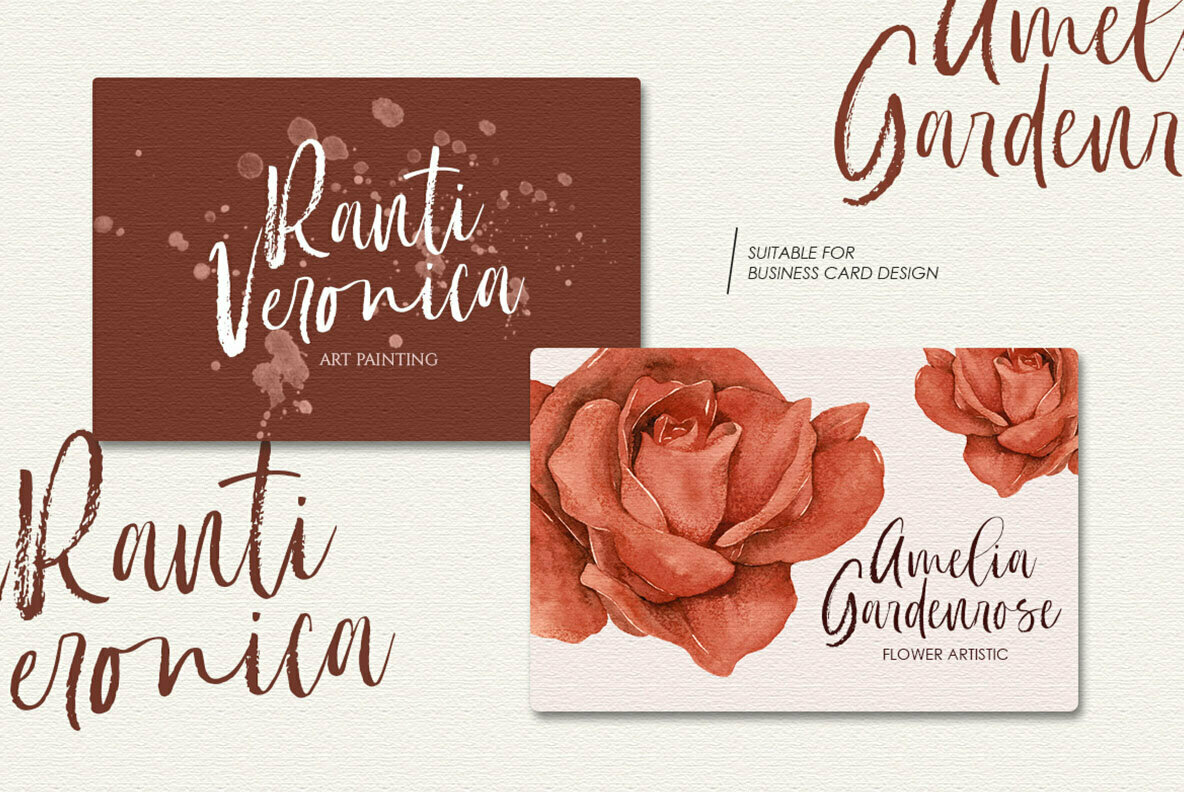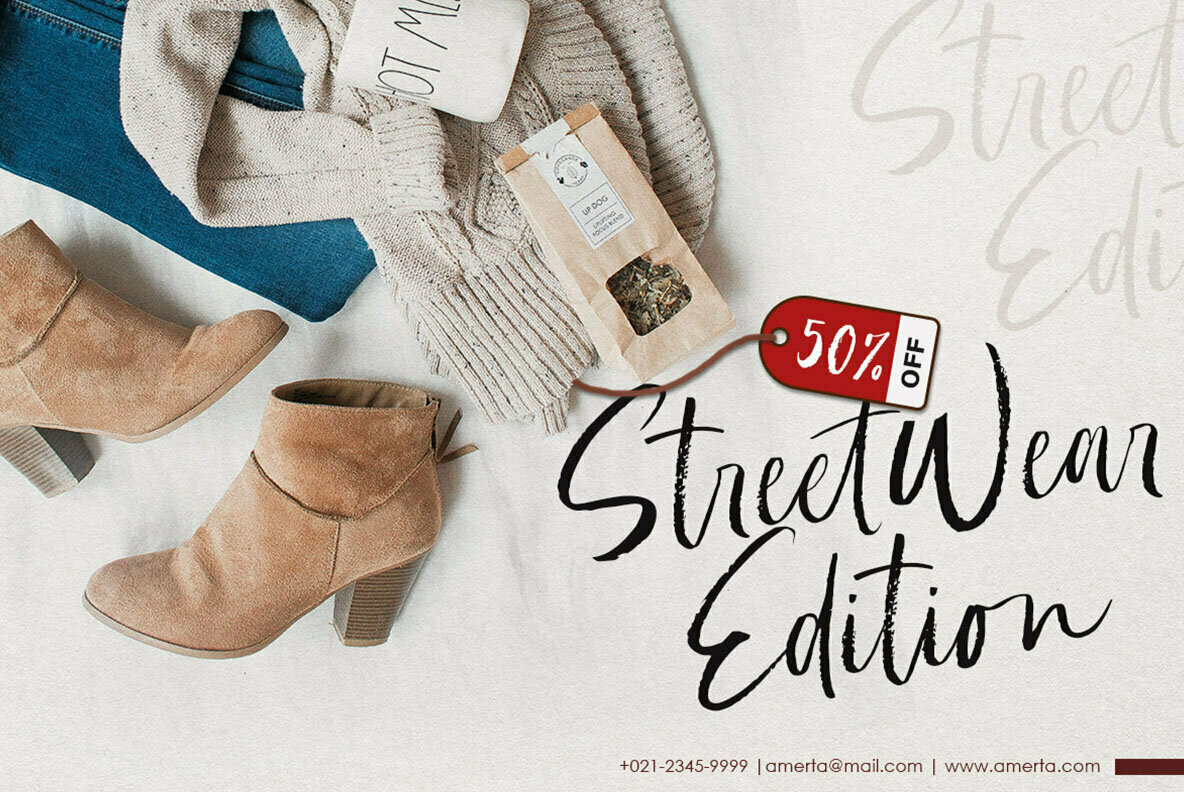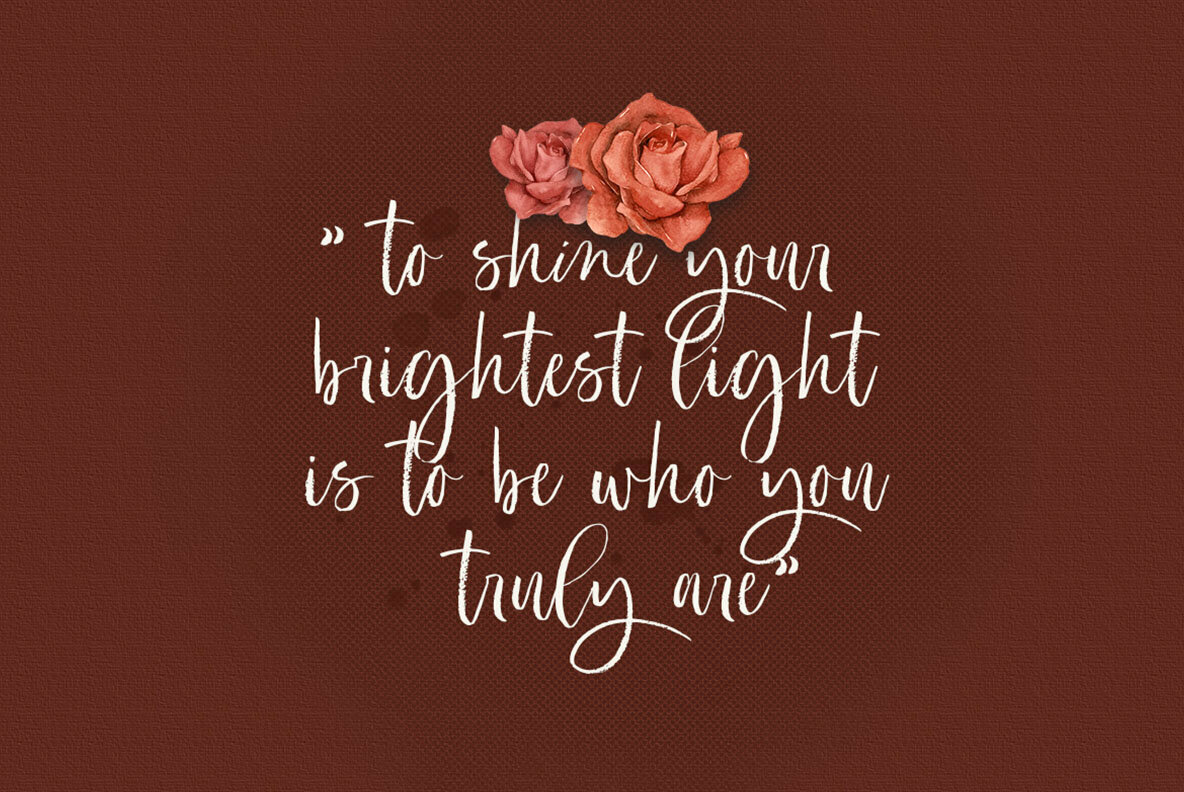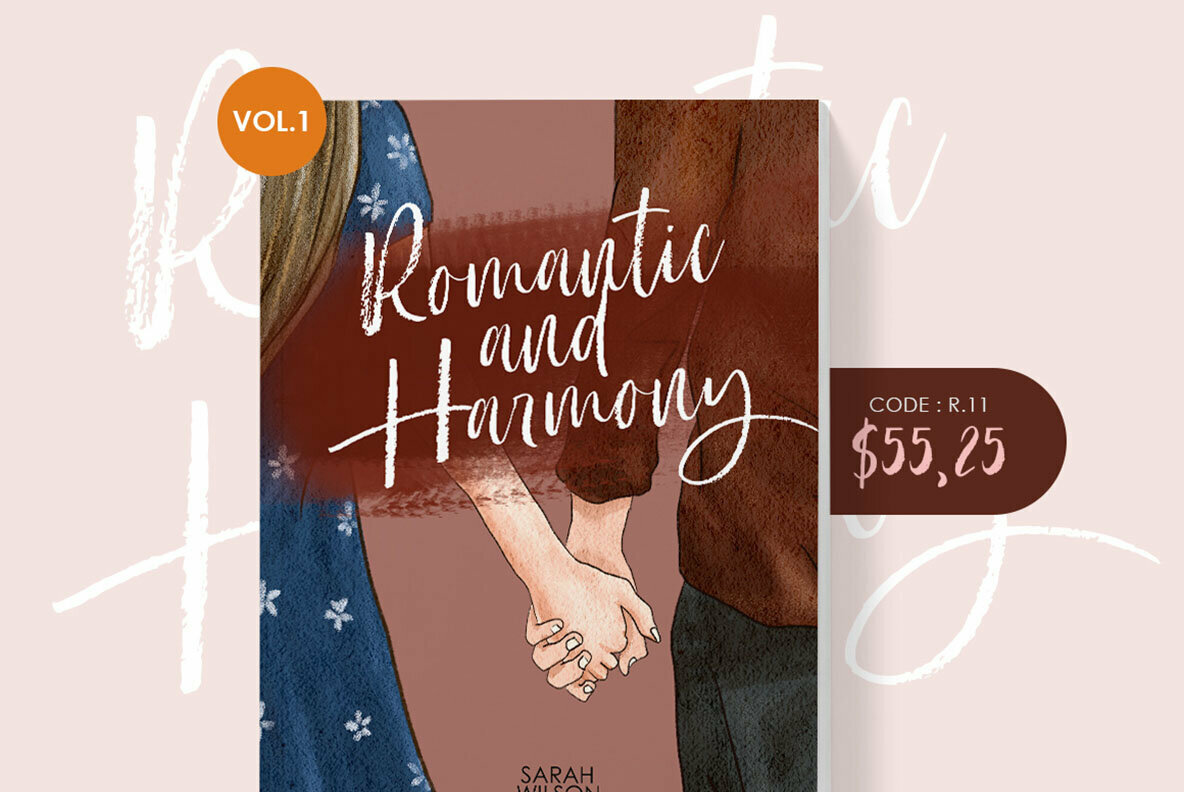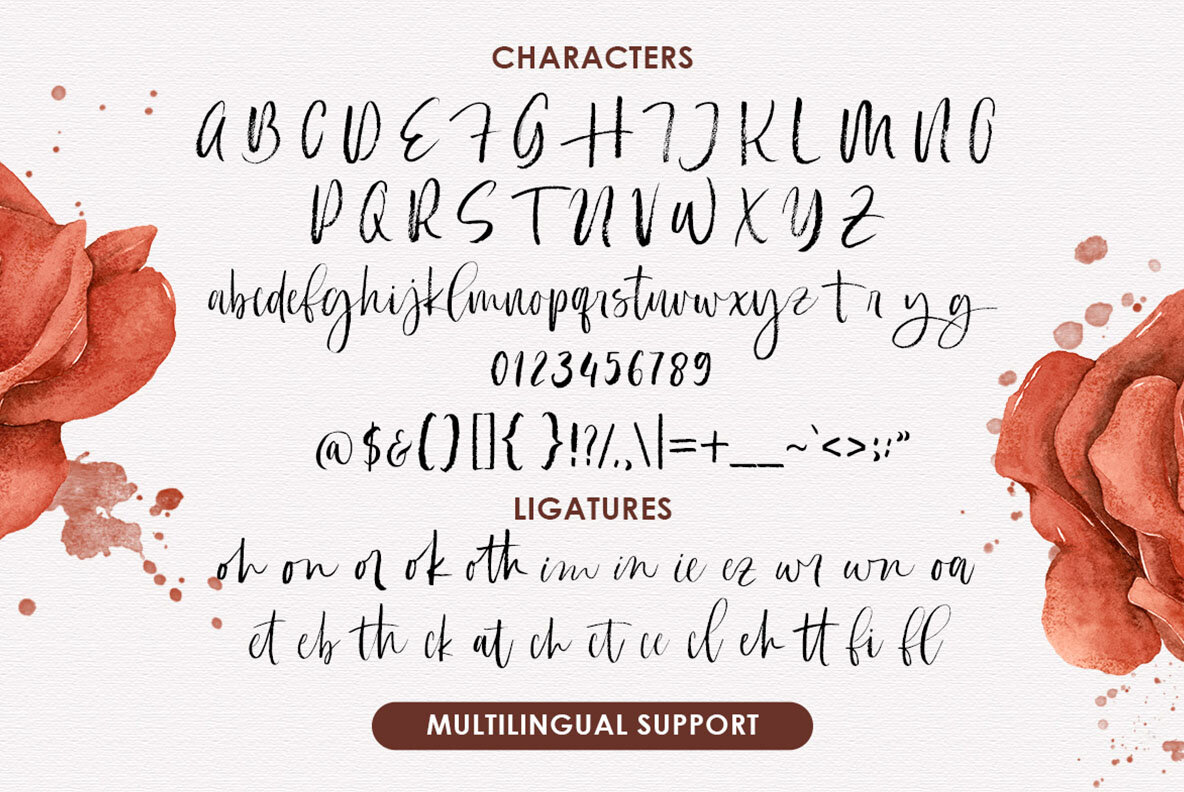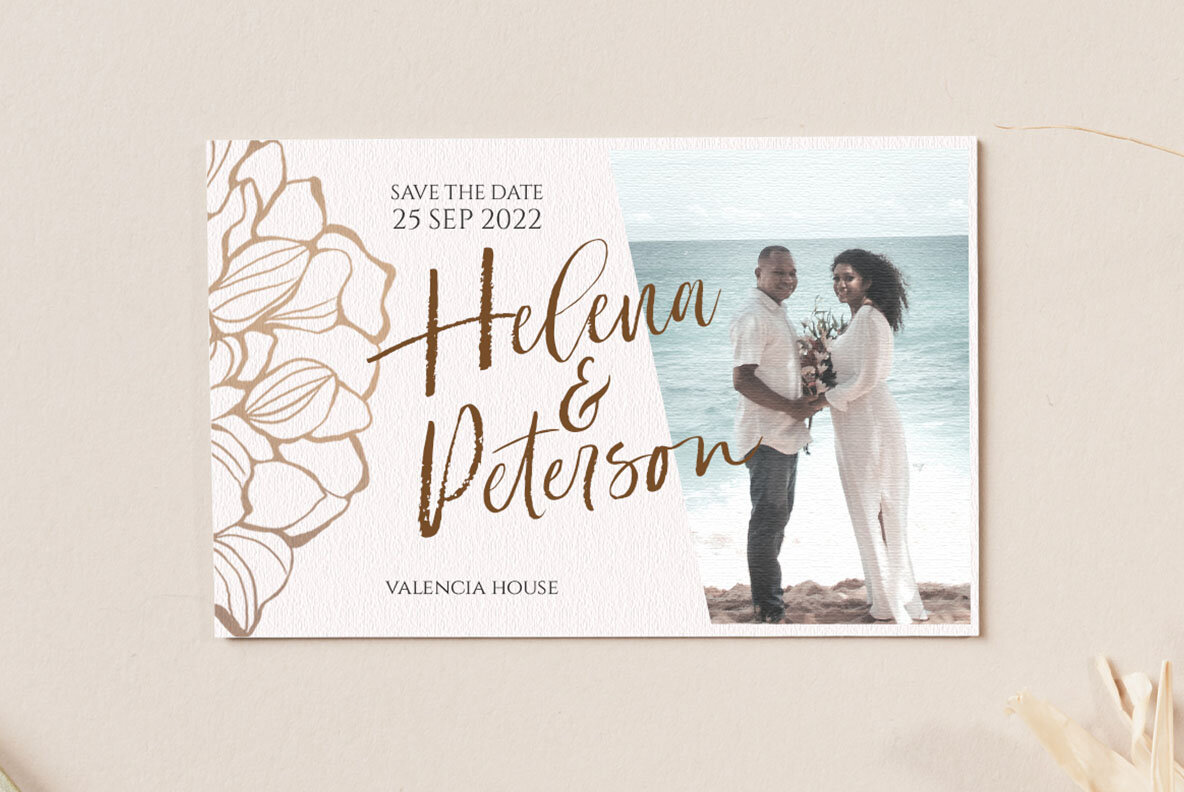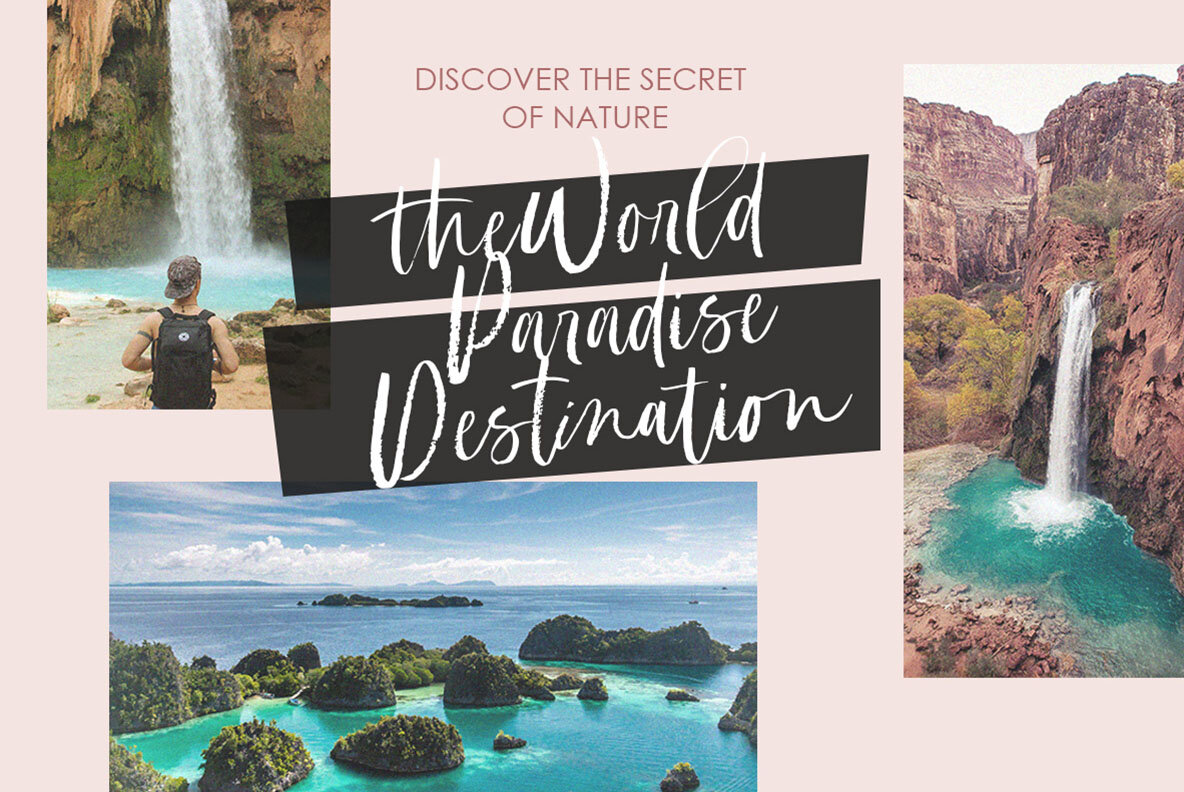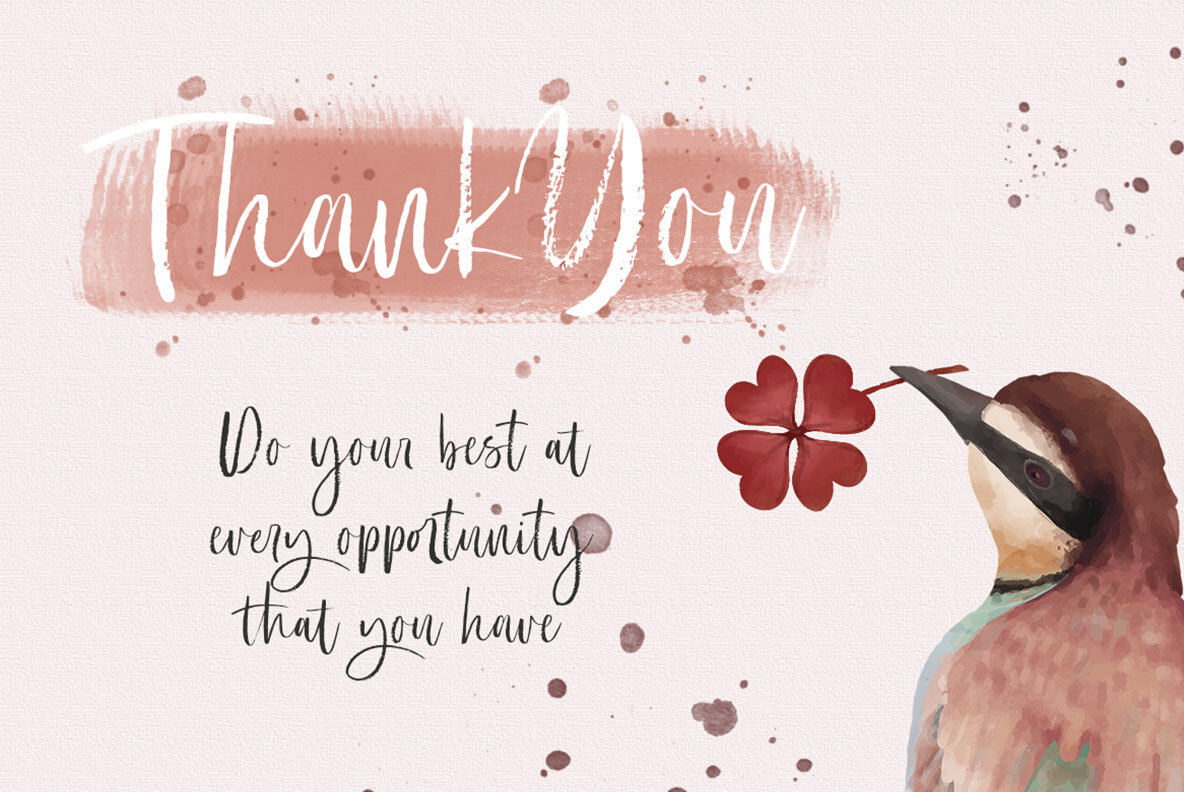
Butter Slices Font
Butter Slices effortlessly captures the elegance of modern calligraphy with its brush script style. This font is crafted from manual handwriting, providing an authentic flow enhanced by graceful swashes. Ideal for wedding invitations, logos, magazines, and more, Butter Slices adds a sophisticated touch to any project. To fully leverage the capabilities of Butter Slices, use a program that supports OpenType features and Glyphs panels, such as Adobe applications and Corel Draw, allowing access to all glyph variations.Butter Slices: Modern Calligraphy in a Brush Script